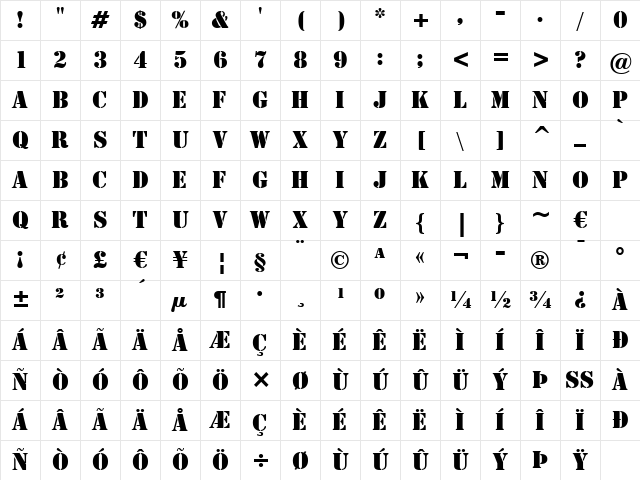
Stencil BT Regular
Design Context for Stencil BT
Stencil BT borrows the utilitarian aesthetic of stencil lettering, with its characteristic cutaways and no-frills construction lending an industrial edge.
Pro Tip: Use Stencil BT at large sizes on packaging, posters, or apparel where the stencil cutaways read clearly. Avoid small sizes where those gaps become visual noise.